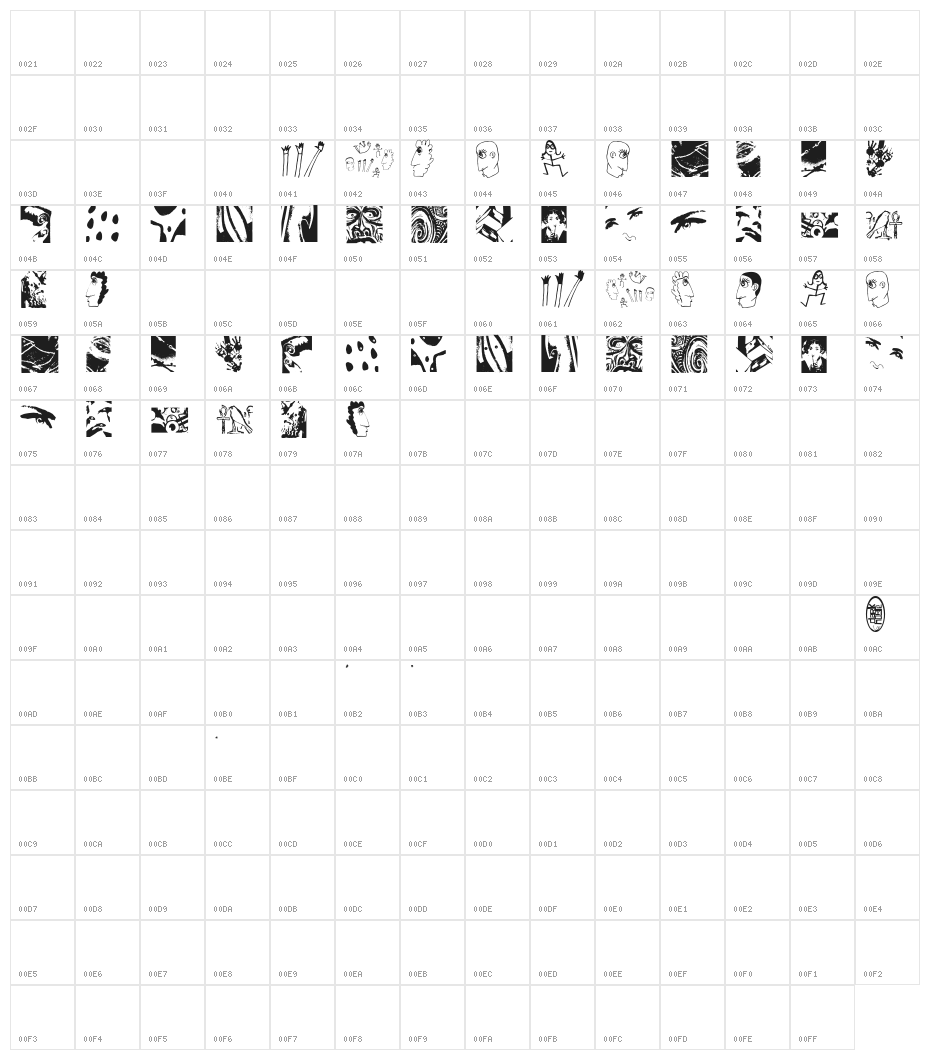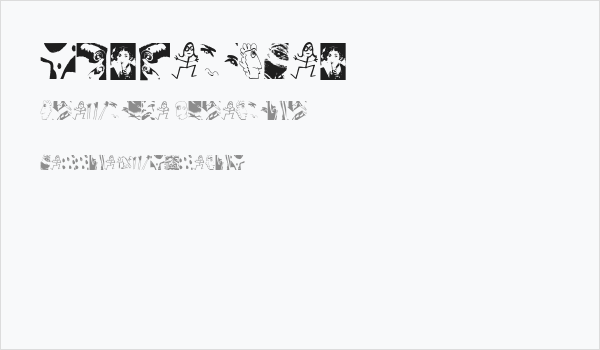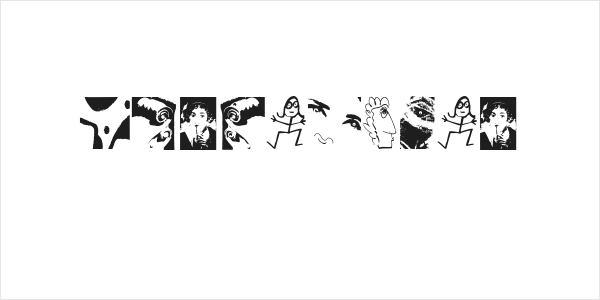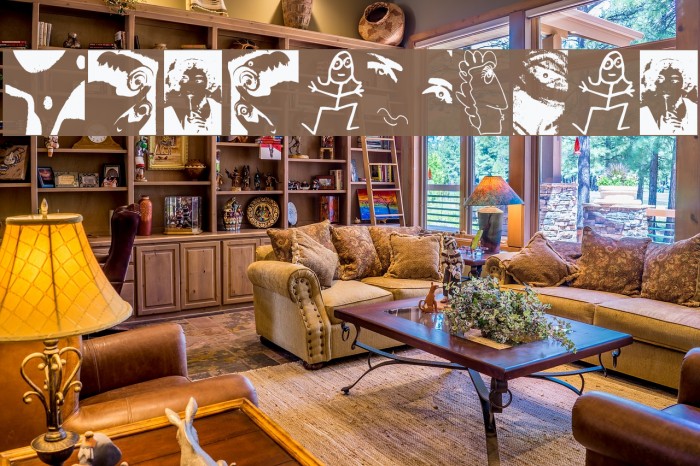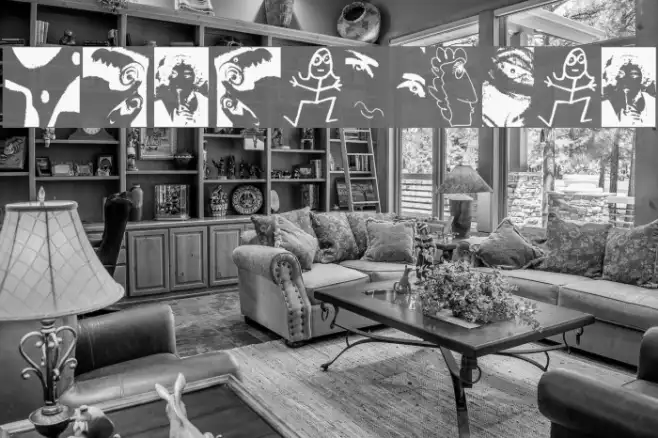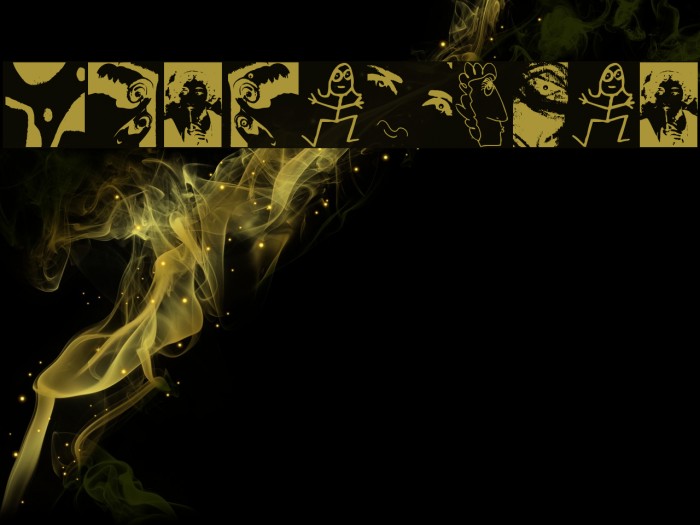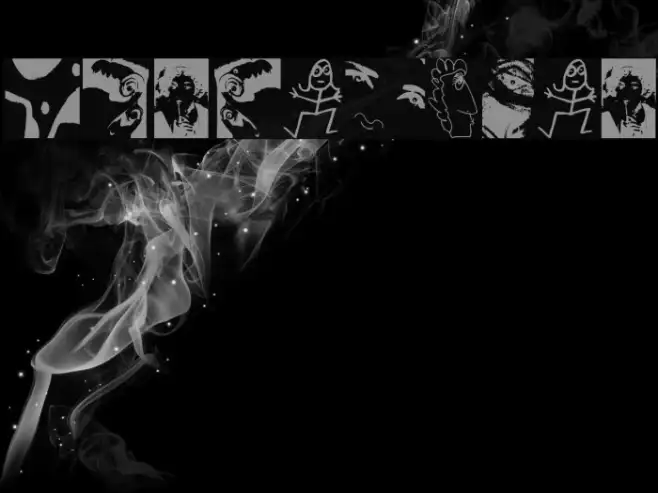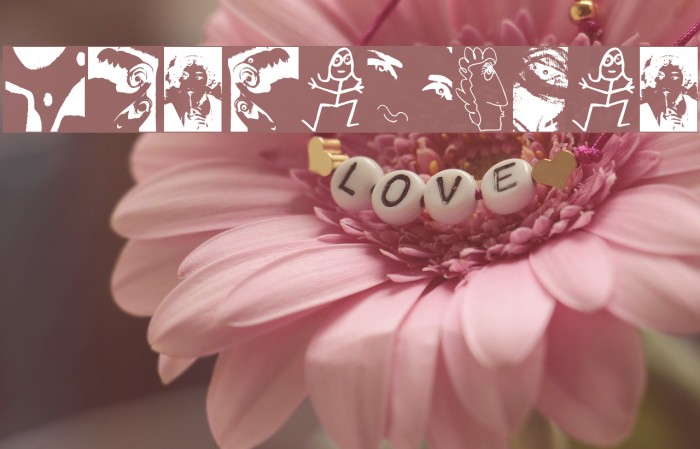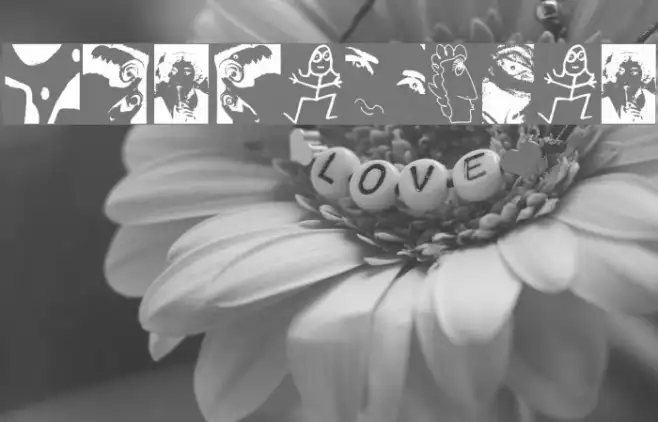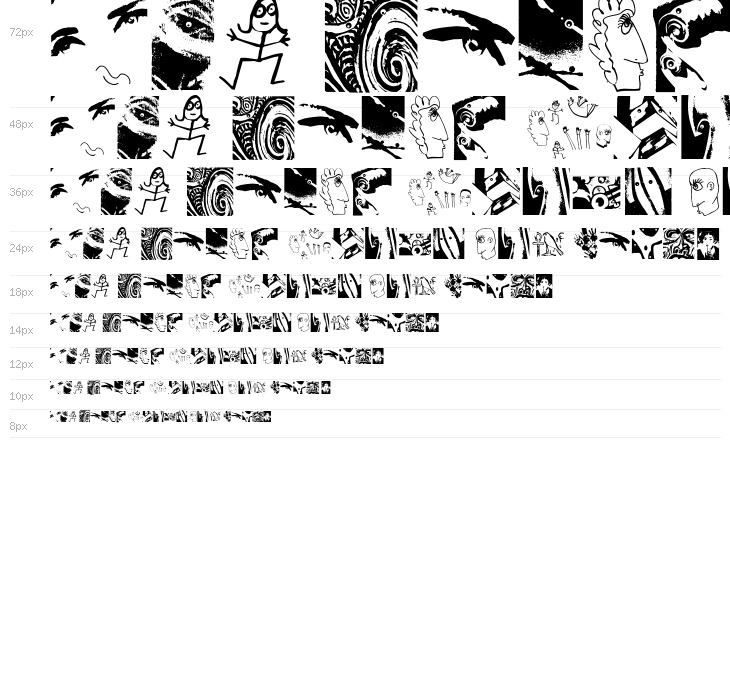
MKsketches Font
MKsketches Description
A highly decorative and illustrative font composed of hand-drawn sketches, abstract patterns, and expressive faces. Each character is represented by a unique black-and-white drawing, making the set visually dynamic and artistic.
| Overall Style | Decorative, Artistic, Abstract |
| Use Case | Logos, Headlines, Posters, Artistic projects |
| Proposed Projects | Posters, album covers, art projects, creative branding, editorial illustrations. |